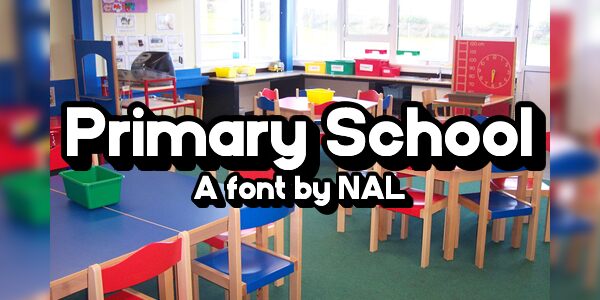
Primary School is a striking sans-serif font that exudes a youthful, playful charm. Designed by Andrew McCluskey, its clean, geometric lines and rounded edges convey a sense of simplicity and accessibility.
The font's bold, legible letterforms make it an excellent choice for educational materials, children's books, and branding targeting a young audience. Primary School's versatility extends beyond its core purpose, as its distinctive aesthetic can also be effectively leveraged in various design contexts, from corporate communications to packaging and digital interfaces.
The font's ability to captivate and engage viewers is a testament to its thoughtful design and enduring appeal.